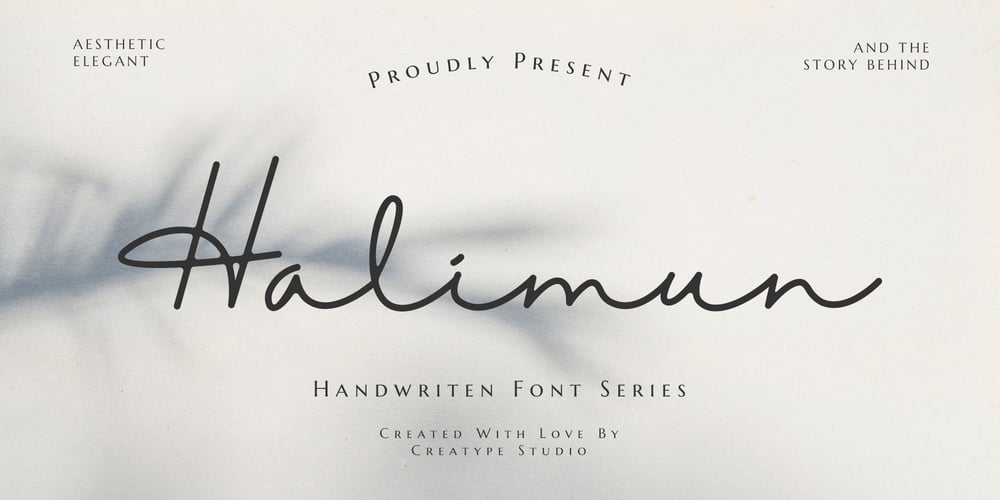
Halimun Script Style
Halimun Script Style font
Halimun Script Style Font Family was designed by Rian Rahardi and published by Creatype Studio. Halimun Script Style contains 1 styles and family package options. Halimun Script Style – a new modern & fresh script with a handwritten and script style makes this font looks elegant, natural, stylish, and perfect for any awesome projects that need handwriting taste.This font is perfect for photography, watermark, social media posts, advertisements, logos & branding, invitation, product designs, label, stationery, wedding designs, product packaging, special events, or anything that needs handwriting taste.Thanks for checking it out, and feel free to message me if you have any questions! say hello by e-mail: creatypestudioco@gmail.com